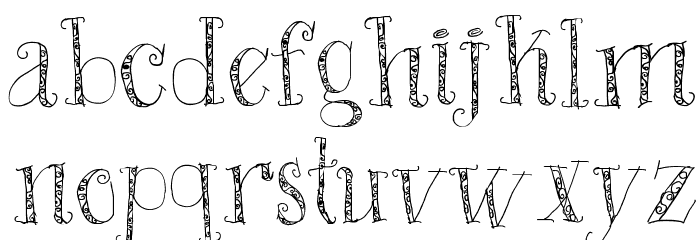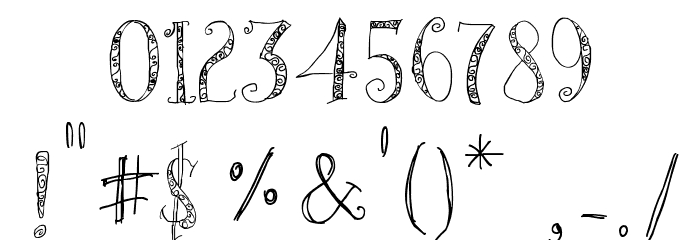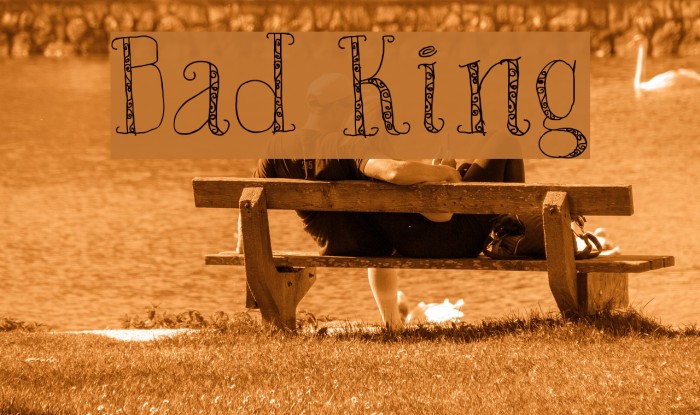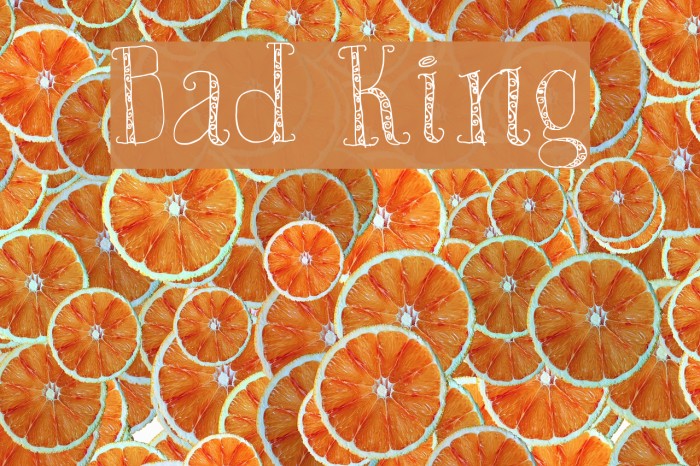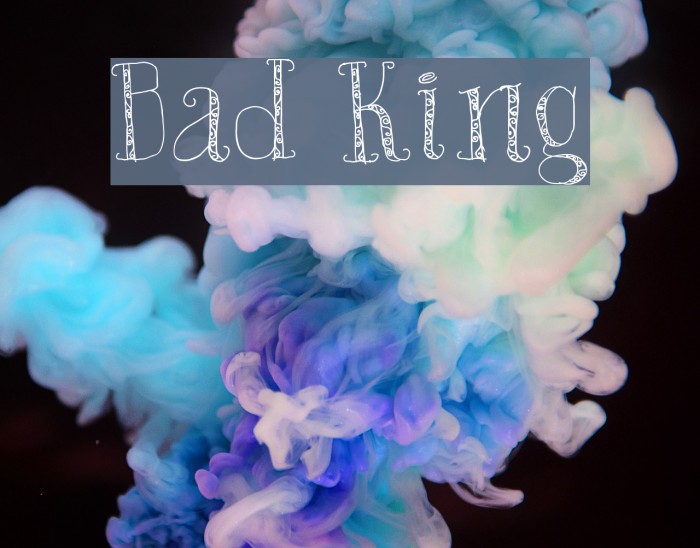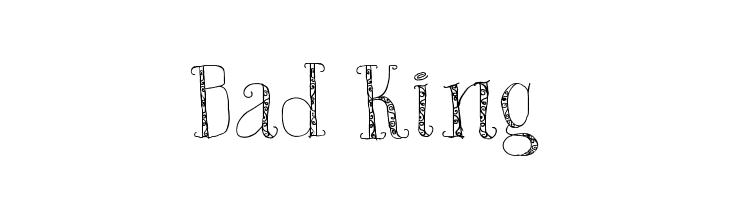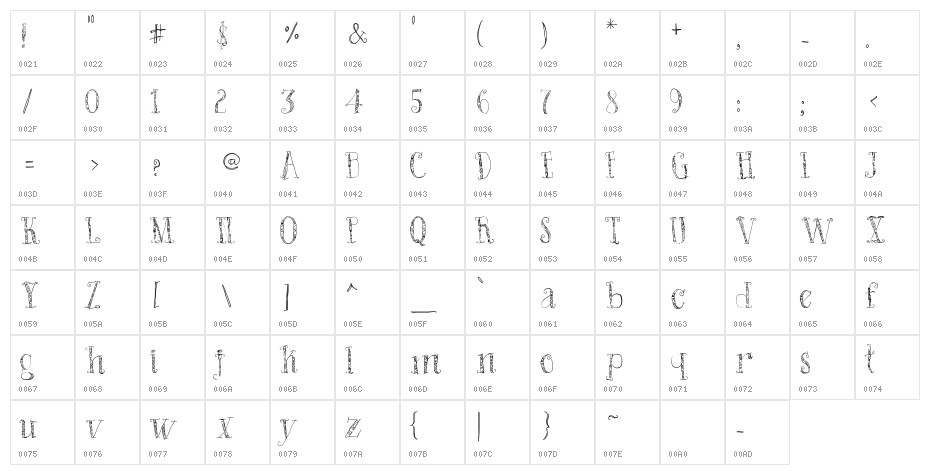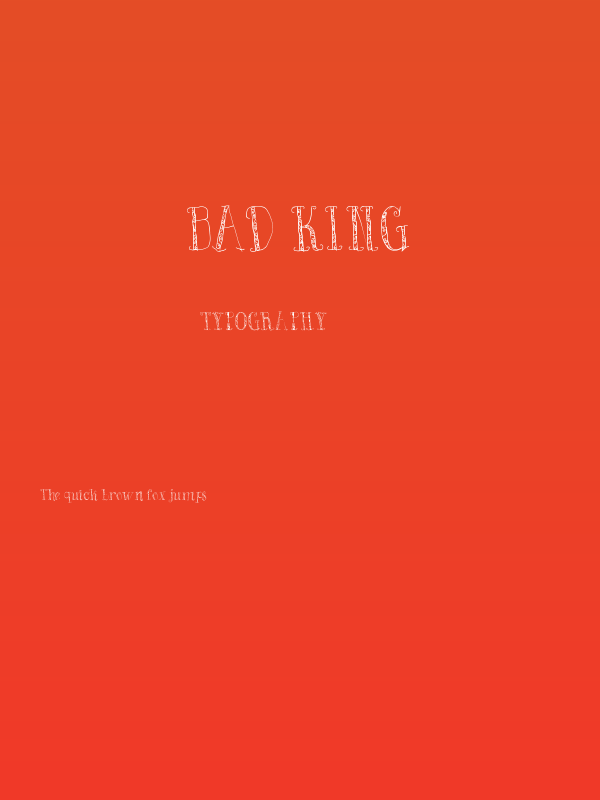
Bad King Font
This font features a whimsical and playful design, characterized by its decorative and intricate patterns within each letterform. The uppercase and lowercase letters are adorned with swirling, vine-like embellishments that give the font a unique and artistic flair. The numerals and special characters maintain this decorative style, ensuring consistency across all glyphs. The font's overall appearance is both charming and eye-catching, making it ideal for creative and artistic projects. Its distinct style is reminiscent of hand-drawn illustrations, adding a personal touch to any design.
A whimsical, decorative font with intricate, vine-like embellishments.
- Proposed Projects: Ideal for greeting cards, children's book covers, artistic posters, and whimsical branding projects.
- Use Case: Headlines, Logos, Artistic projects